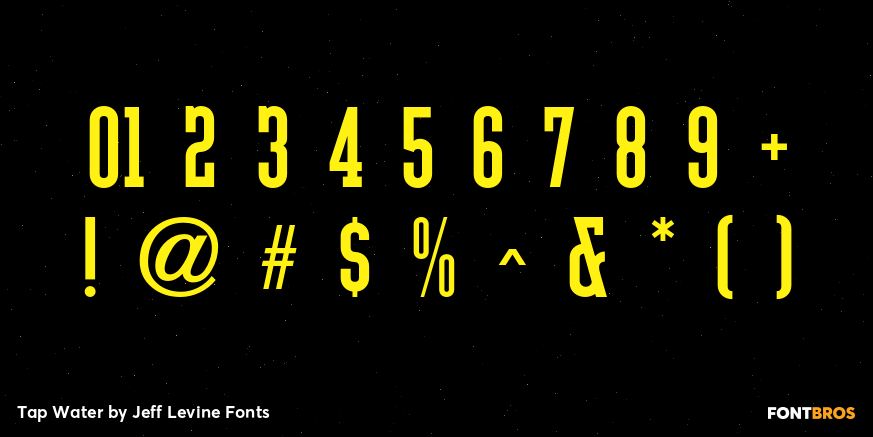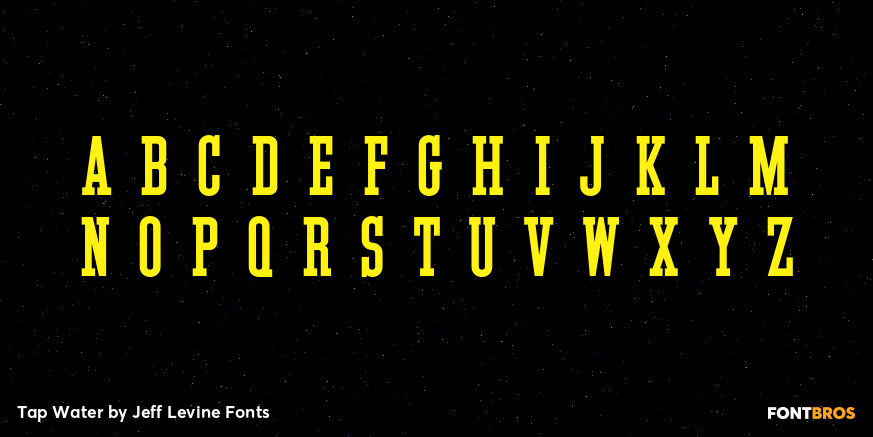
Tap Water
A WPA (Works Progress Administration) poster for the Rural Electrification Administration's promoting of running water for rural areas is the basis for Tap Water JNL.
A condensed slab serif, it is available in both regular and oblique versions.